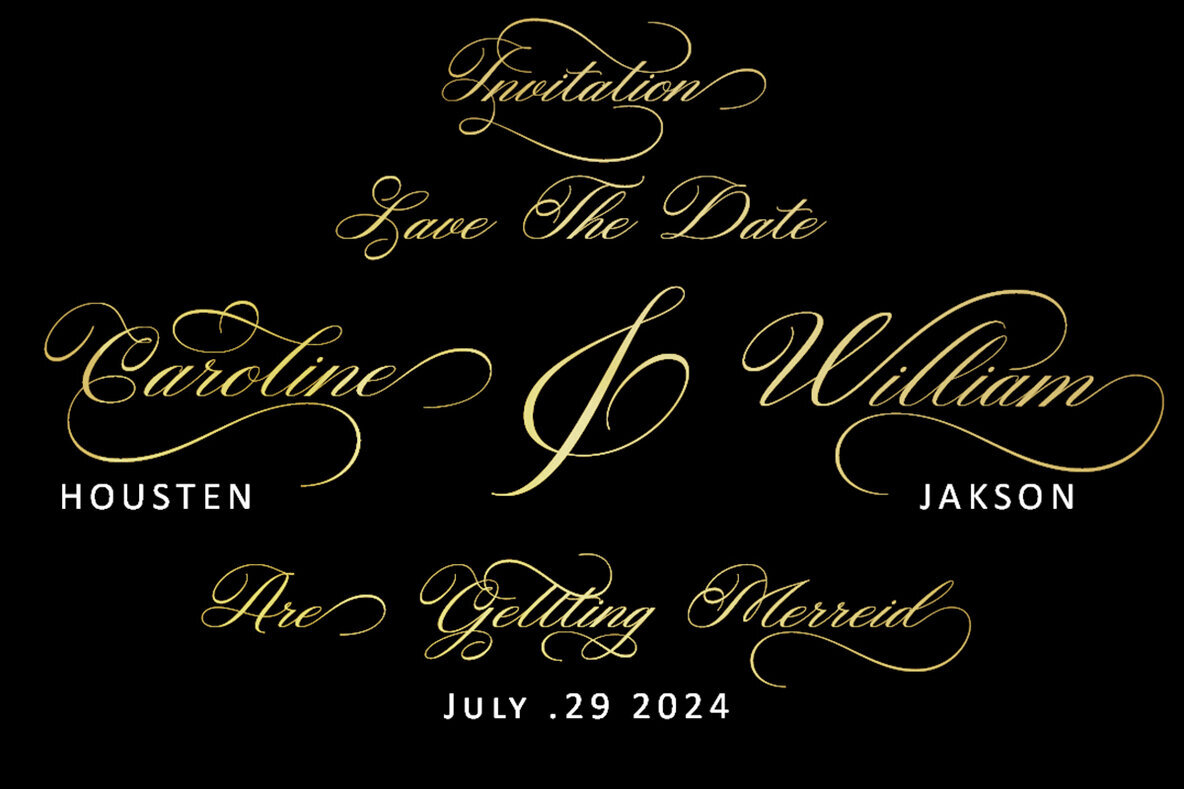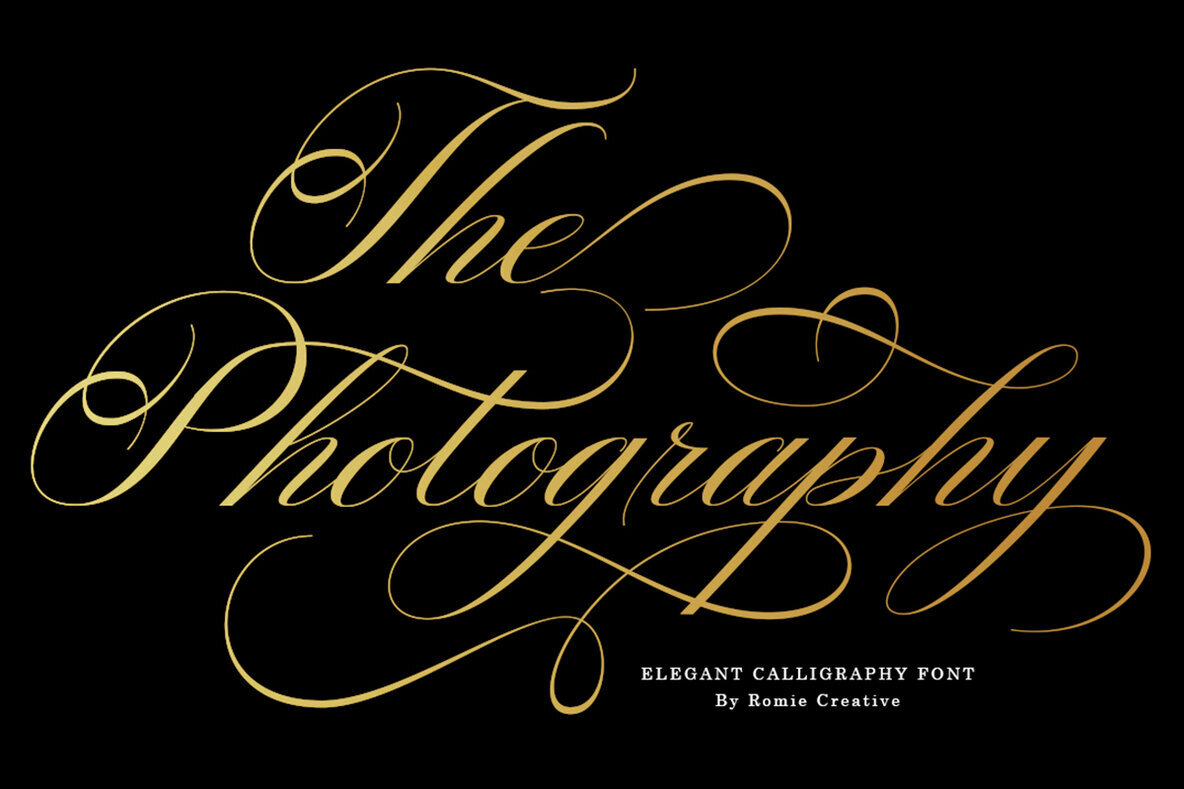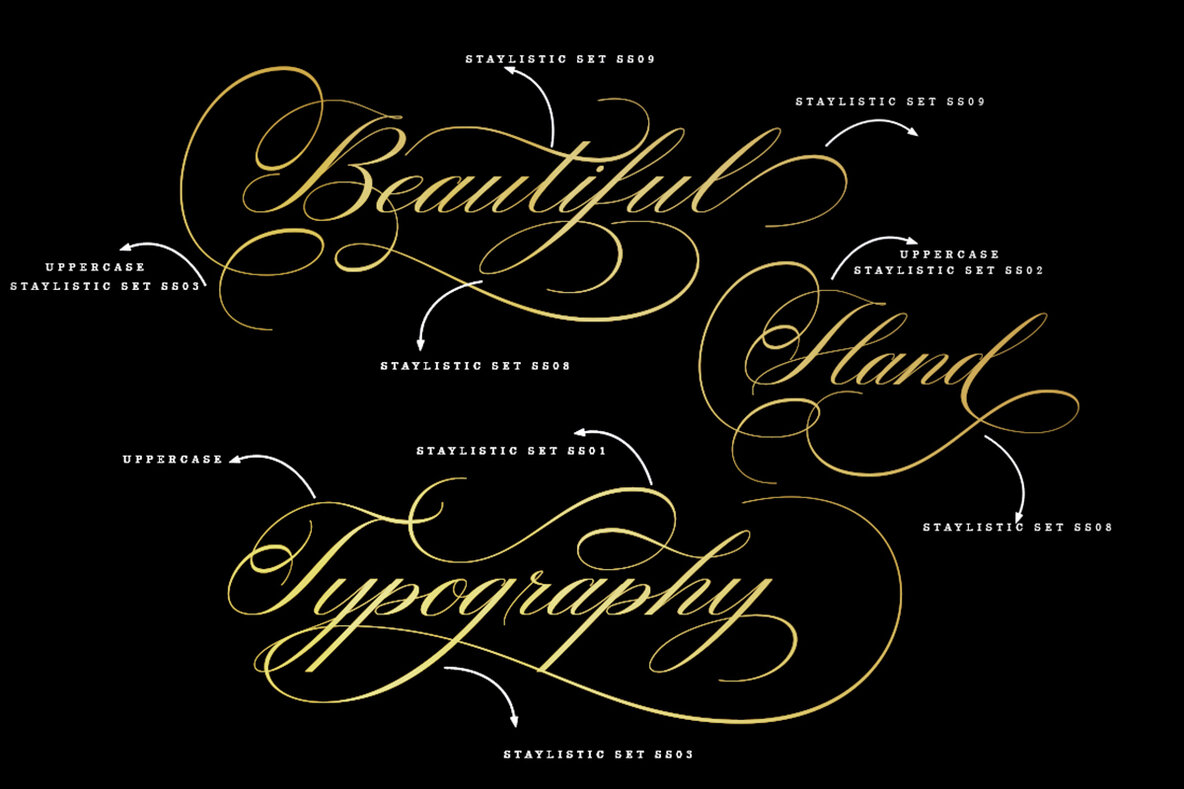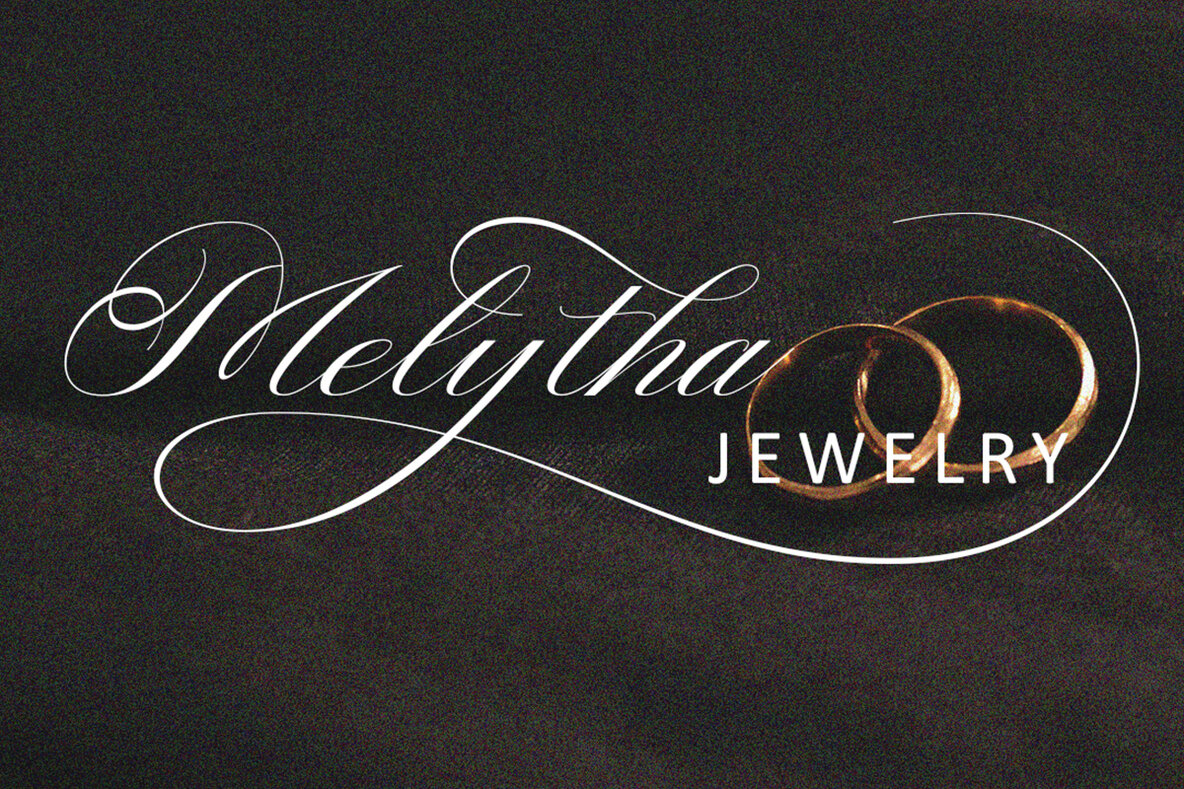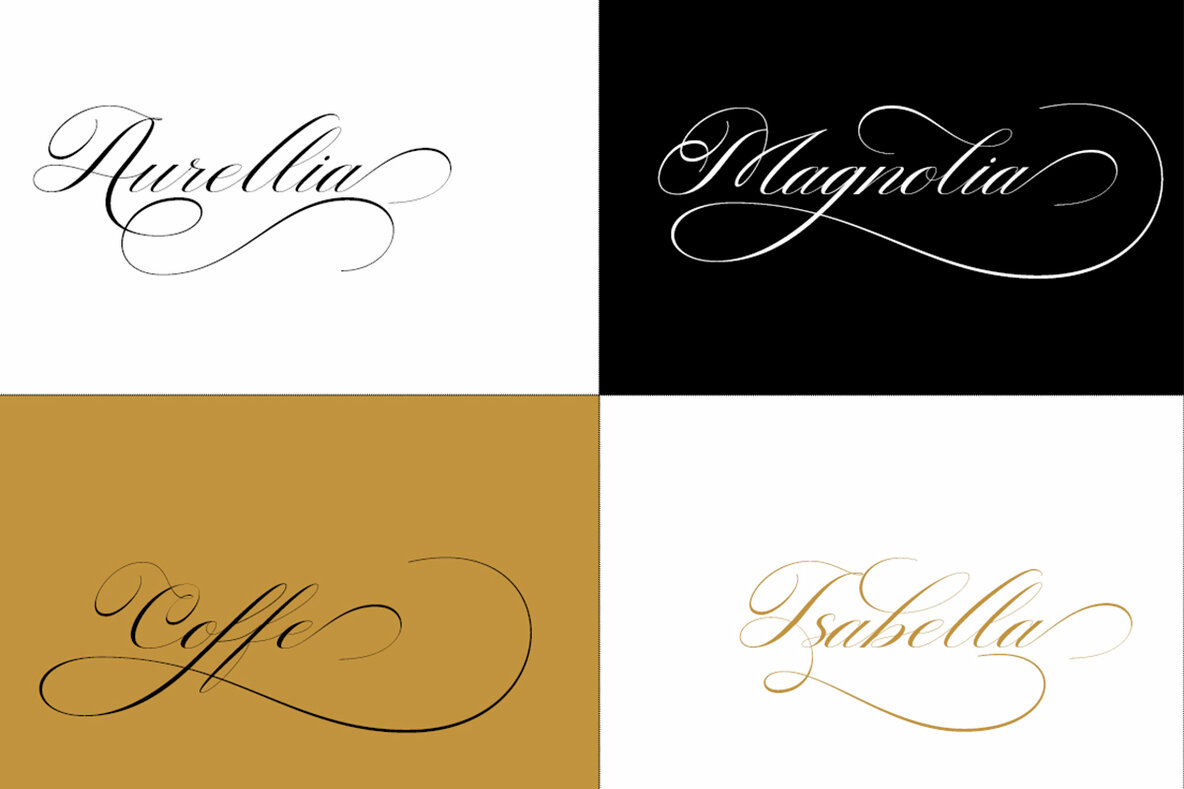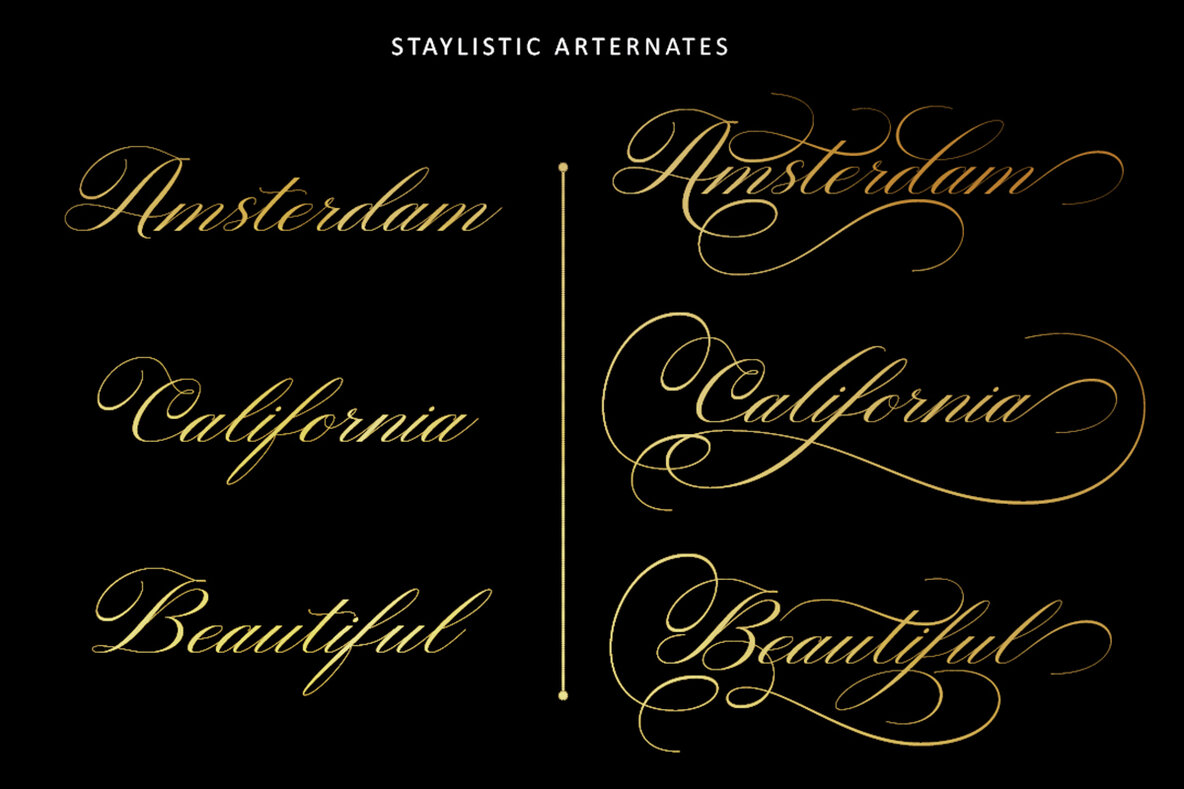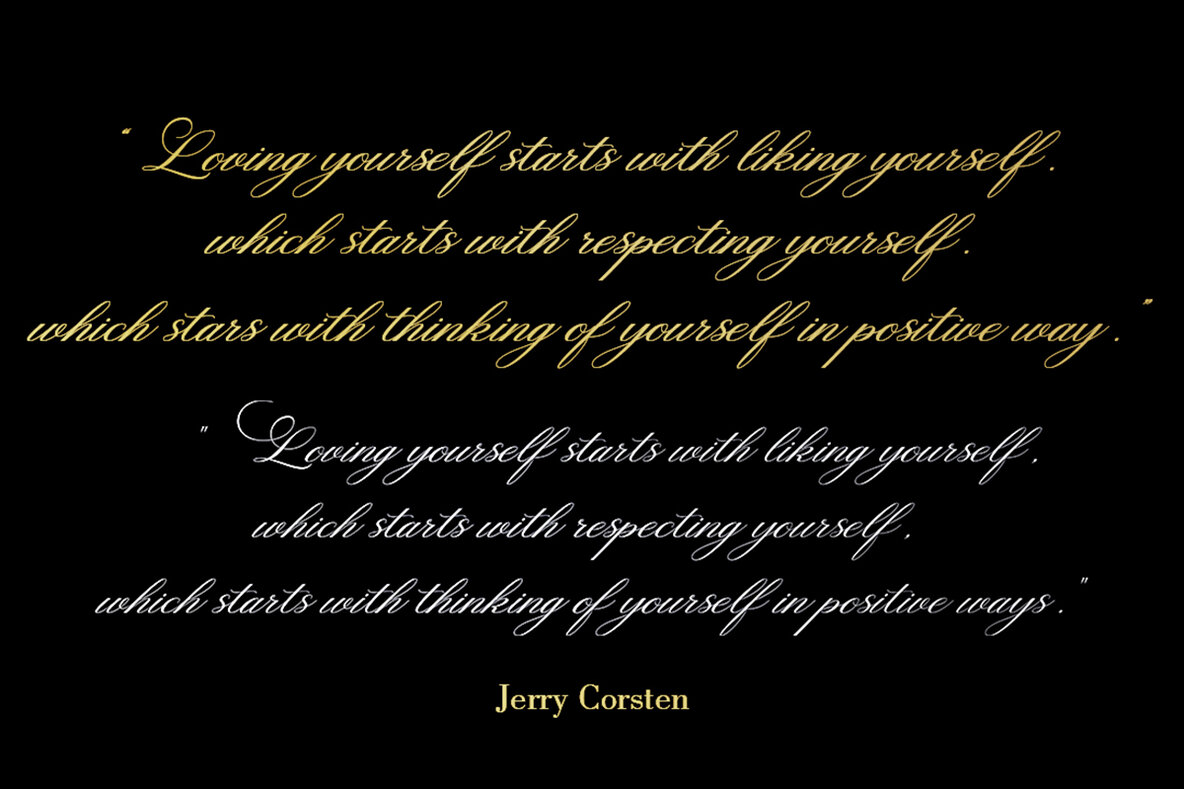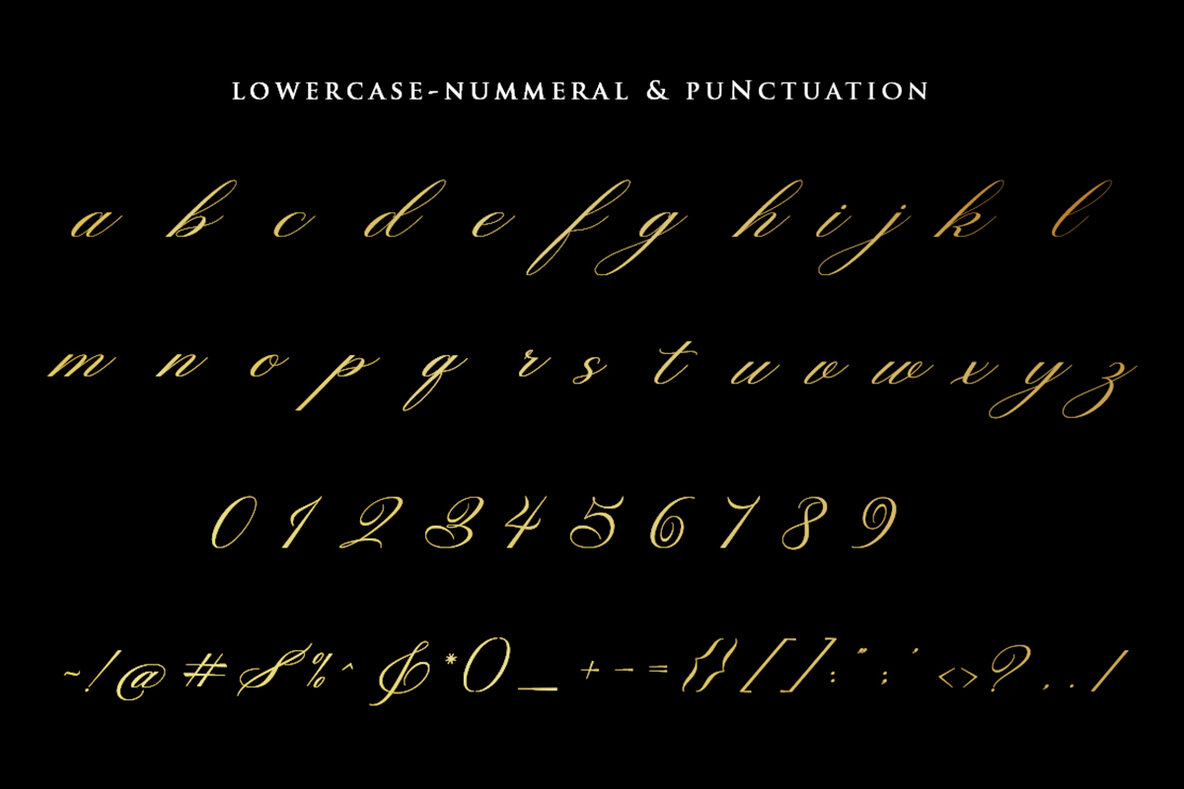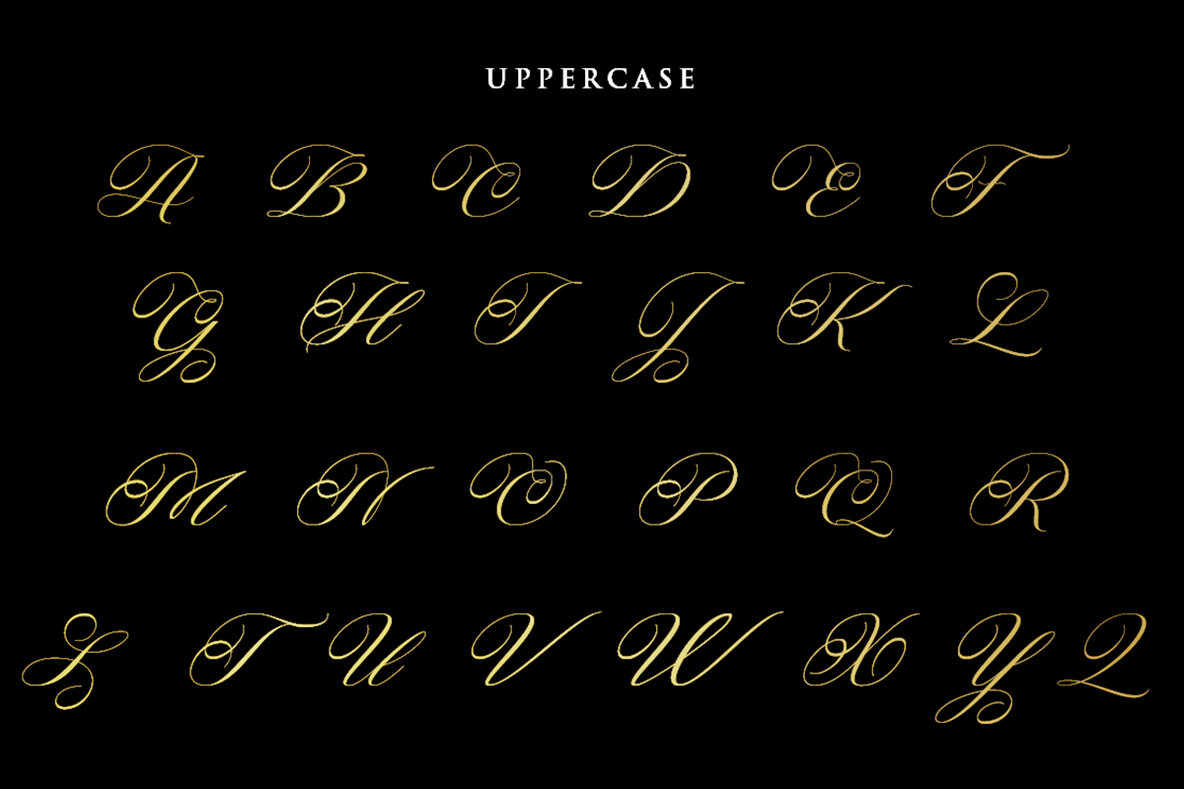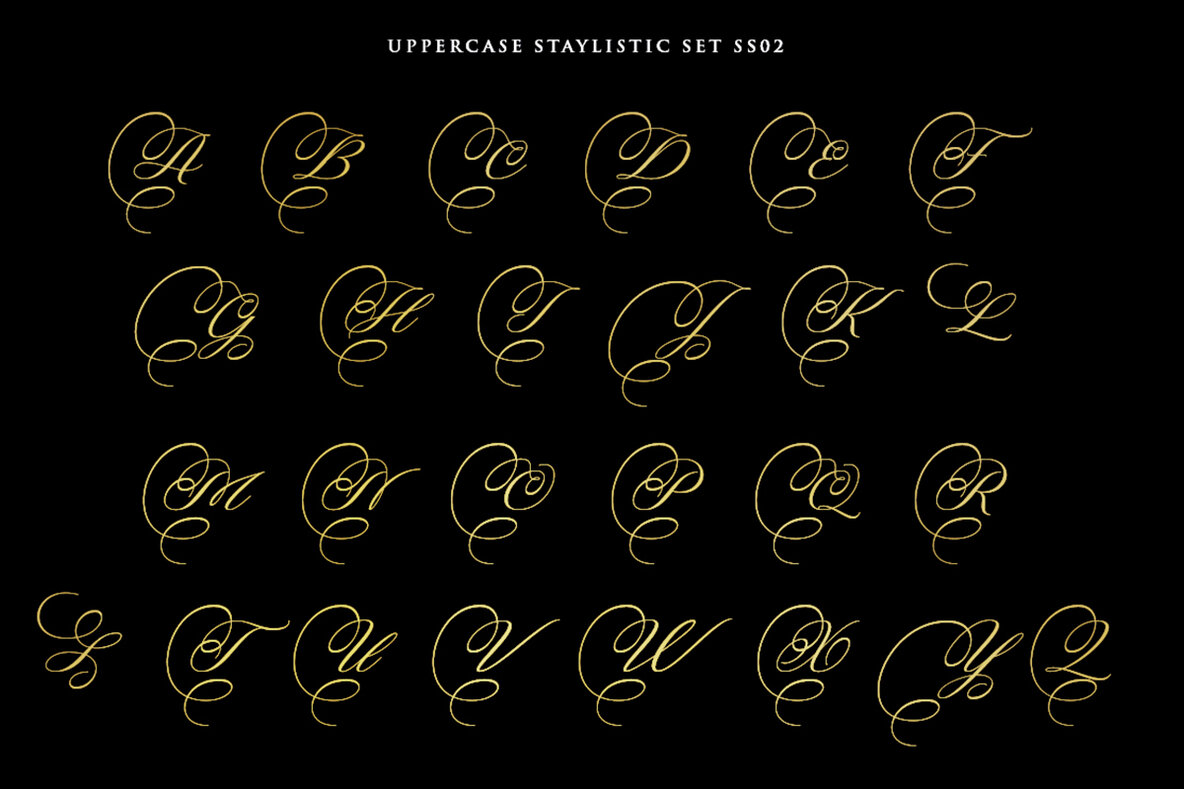
Rastering Font
Rastering
Introducing a sophisticated calligraphy font perfect for adding a touch of elegance to your design projects. This script font offers a comprehensive set of uppercase and lowercase letters, numbers, and a variety of punctuation marks, making it highly versatile for different design needs. Additionally, the font includes lowercase letters with end swashes and alternate characters, allowing for creative customizations and unique typography.
This calligraphy font is fully equipped with features like multilingual support, swashes, and OpenType capabilities, providing flexibility for international projects and advanced design work. Its refined style makes it an excellent choice for branding, invitations, logos, and more, where a distinct and elegant aesthetic is desired. Craft stunning, personalized designs that capture attention and convey sophistication.